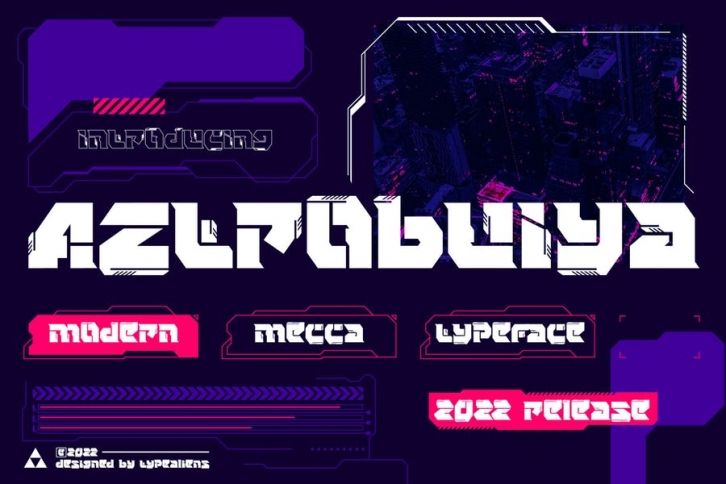
AZTROBUIYA is a unique font with a style inspired by Futuristic designs or from robot costumes. It is suitable for character fashion designs, steam punk style designs.